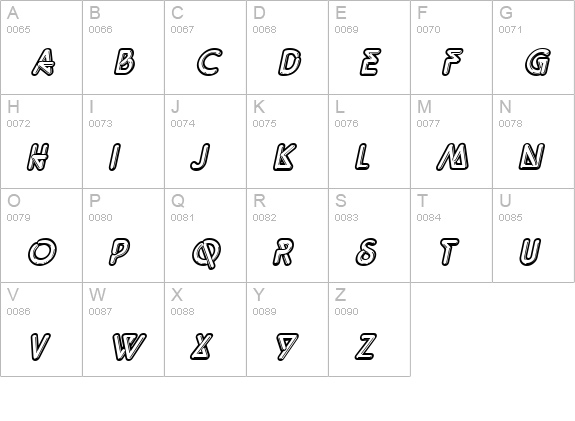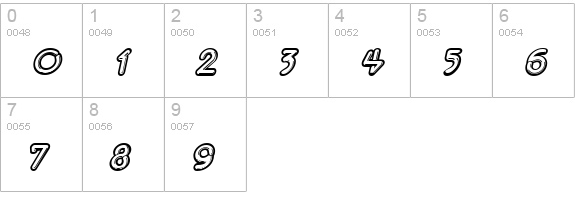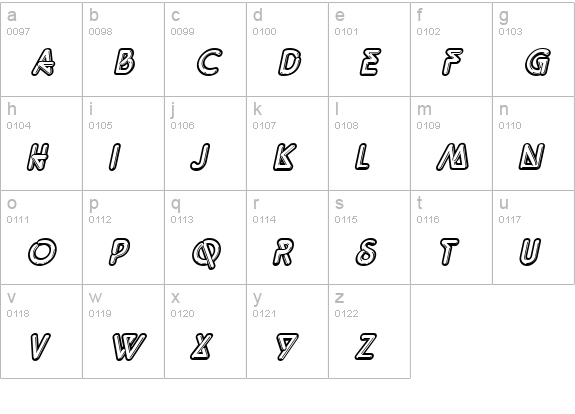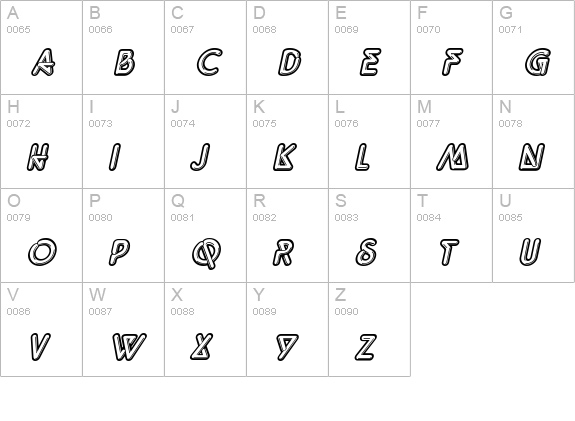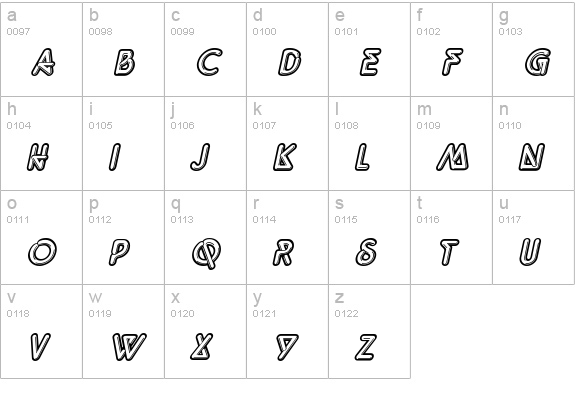
QuarkNeon Italic Font Details
QuarkNeon Italic is a distinctive, italic variant in the QuarkNeon typeface family \xE2\x80\x94 well suited to design and typography projects.
QuarkNeon Italic is a modern and stylish font that effortlessly combines elegance with a touch of playfulness. Its sleek and slanted letterforms exude a sense of dynamism and energy, making it perfect for projects that require a bold and captivating aesthetic. This italic font is designed with precision and attention to detail, resulting in a unique and eye-catching typeface that is sure to make a lasting impression. Each letter is meticulously crafted, showcasing the perfect balance between sharp edges and graceful curves. QuarkNeon Italic is ideal for a wide range of design applications, from branding and logo design to editorial layouts and advertising campaigns. Its versatility allows it to effortlessly adapt to any context, adding a touch of sophistication and modernity to any project. But what truly sets QuarkNeon Italic apart is that it is freely available to download at FontsMarket.com. This means that designers, creatives, and enthusiasts can easily access and utilize this exceptional font without any limitations. Whether you're working on a personal project or a commercial endeavor, QuarkNeon Italic provides you with the freedom to express your creativity without breaking the bank. So, if you're looking for a font that combines elegance, style, and affordability, look no further than QuarkNeon Italic. Download it today from FontsMarket.com and embark on a typographic journey that will elevate your designs to new heights.